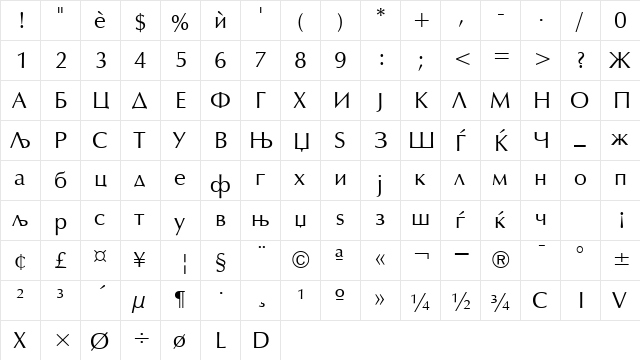
Macedonian Humanist Regular
Design Context for Macedonian Humanist Typeface
Macedonian Humanist takes a measured approach to typography — its balanced proportions and neutral character make it a reliable workhorse for both digital and print work.
Pro Tip: Use Macedonian Humanist in both headline and body roles to test its range before committing to a single application.